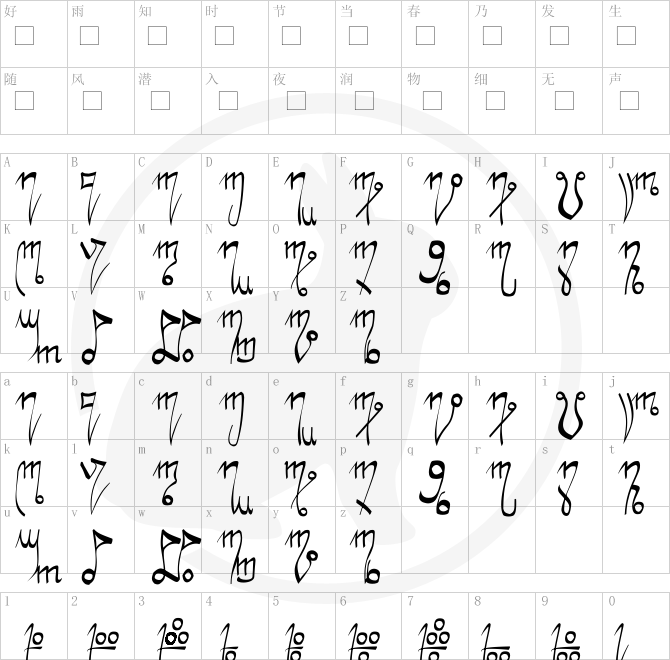
- Font Name:Nanduria
Nanduria-Normal.ttf is a very beautiful artistic font, Nanduria-Normal.ttf is widely used in the design and printing of various books and pictures,Nanduria-Normal.ttf has a strong visual impact,Nanduria-Normal.ttf is a commonly used font in newspapers, magazines and books, and is used in posters, e-commerce Poster design, store design, logo design, font design and other fields.Nanduria-Normal.